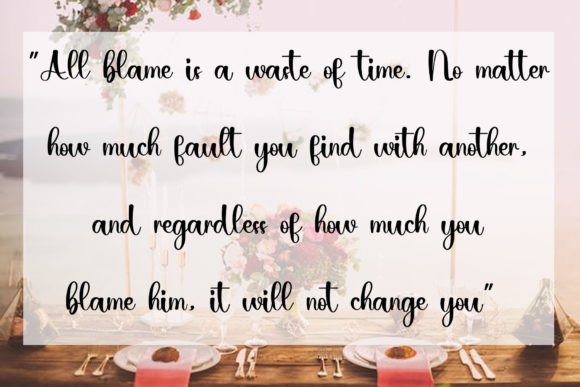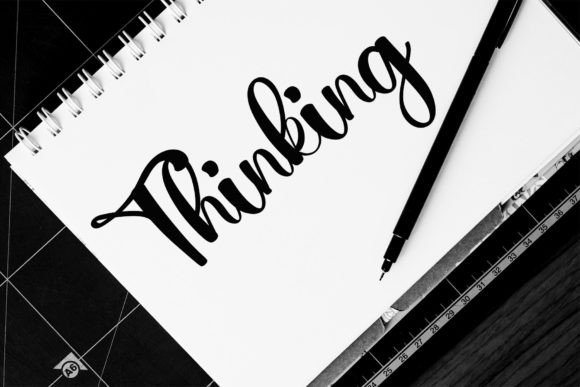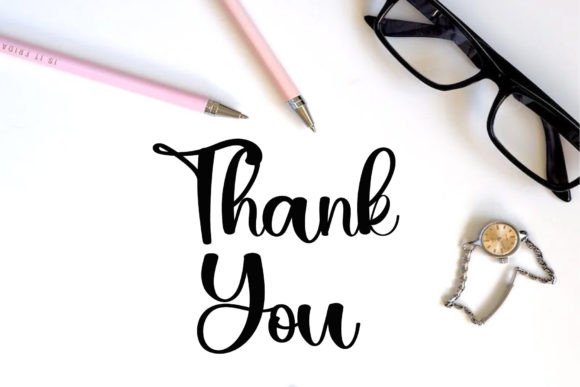
Introduction to Laundry Merry Font
As a designer, you’ve likely found yourself in that perfect moment of creative flow, where every element falls into place, and your vision starts to take shape. It’s that feeling of excitement and satisfaction that makes all the hard work worth it. For me, that moment often begins with the perfect font – one that adds a touch of elegance and sophistication to my design. And that’s where the Laundry Merry Font comes in.
This beautiful handwritten font has captured my heart with its distinct and timeless style, making it the perfect addition to any creative project. Whether you’re working on a new logo, a branding campaign, or simply want to add a personal touch to your designs, the Laundry Merry Font is an invaluable resource. With its high-quality design and transparent background, it’s the perfect tool for any designer looking to elevate their work.
Key Features of Laundry Merry Font
• High-quality design resource perfect for creative projects, including graphic design and digital art.
• Features a transparent background, allowing for easy integration with other design elements.
• Includes a range of unique and playful characters, making it ideal for adding a touch of whimsy to your design project.
Honest Review: Laundry Merry Font
I recently stumbled upon the Laundry Merry Font while searching for a free design resource to enhance my creative project. I was pleasantly surprised by the high quality of this font, which features a transparent background and a playful, whimsical design.
Here are some of the things that I like about the Laundry Merry Font:
• ✨ High quality design with crisp lines and smooth edges.
• ✨ Transparent background, making it easy to use in various design scenarios.
• ✨ Versatile font suitable for a range of creative projects, from digital art to print design.
However, I did encounter a few limitations while using the Laundry Merry Font:
• ⚠️ Limited character set, which may not be suitable for longer texts or documents.
• ⚠️ May not be compatible with all operating systems or software applications.
Overall, I was impressed by the Laundry Merry Font’s design and versatility. While it has some limitations, I would still recommend it as a valuable design resource for creative projects. With a little creativity, you can use this font to create unique and eye-catching designs.
Tips for Getting the Most Out of Laundry Merry Font
To get the most out of Laundry Merry Font, use it in combination with other design resources, such as graphics and textures. Experiment with different font sizes, colors, and styles to create unique and eye-catching designs.
Common Use Cases for Laundry Merry Font
Laundry Merry Font is a versatile design resource that can be used in a variety of creative projects, including graphic design, digital art, and typography. Some common use cases include creating logos, branding materials, and social media graphics.